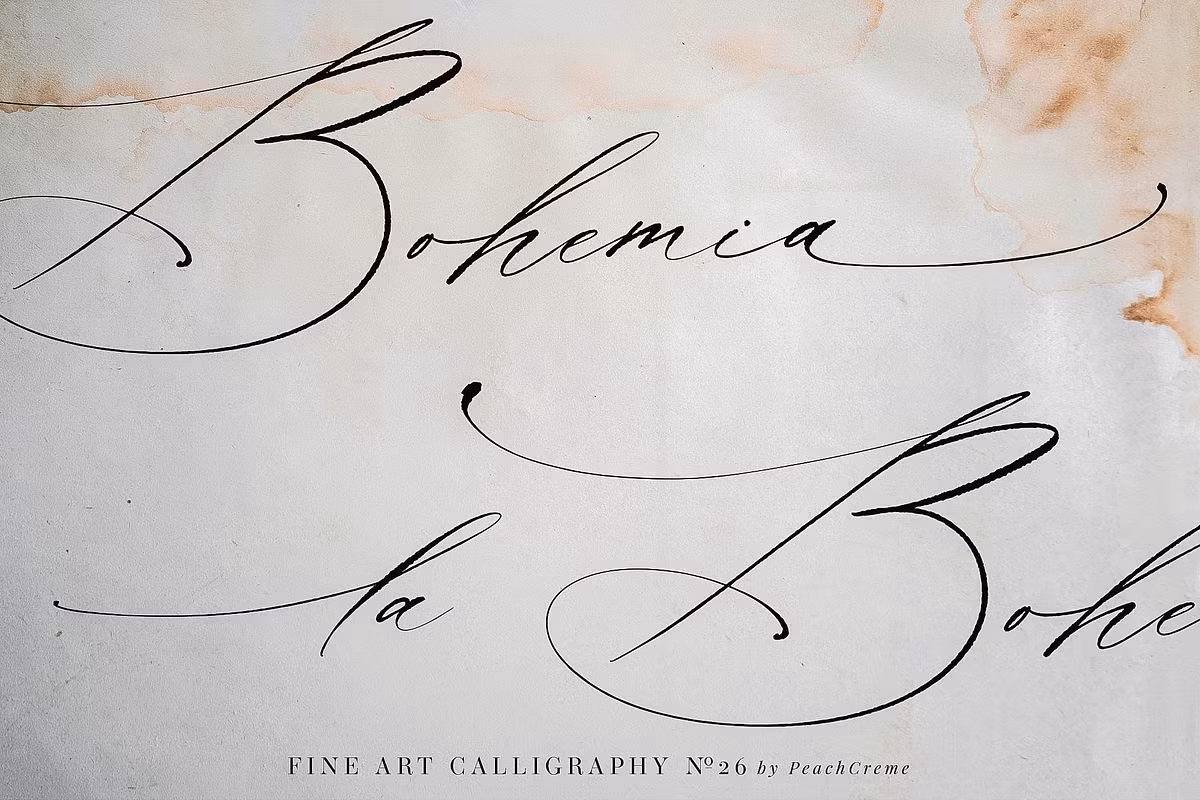
La Bohemia // Fine Art Calligraphy Free Download is a sophisticated and elegant script typeface designed to add a touch of refined beauty to your creative projects. With its flowing lines, graceful curves, and intricate details, this font is perfect for wedding invitations, luxury branding, fine art exhibitions, and any project requiring an artistic, handcrafted feel.
La Bohemia embodies the essence of calligraphy, blending fine art with a modern touch. Whether you're designing a personal logo, creating elegant stationery, or crafting a high-end brand identity, this font brings timeless elegance and sophistication to your work.
The font includes uppercase and lowercase letters, numerals, punctuation, and multilingual support, making it versatile for various design applications. It works beautifully in both print and digital formats, ensuring your designs look refined and professional.